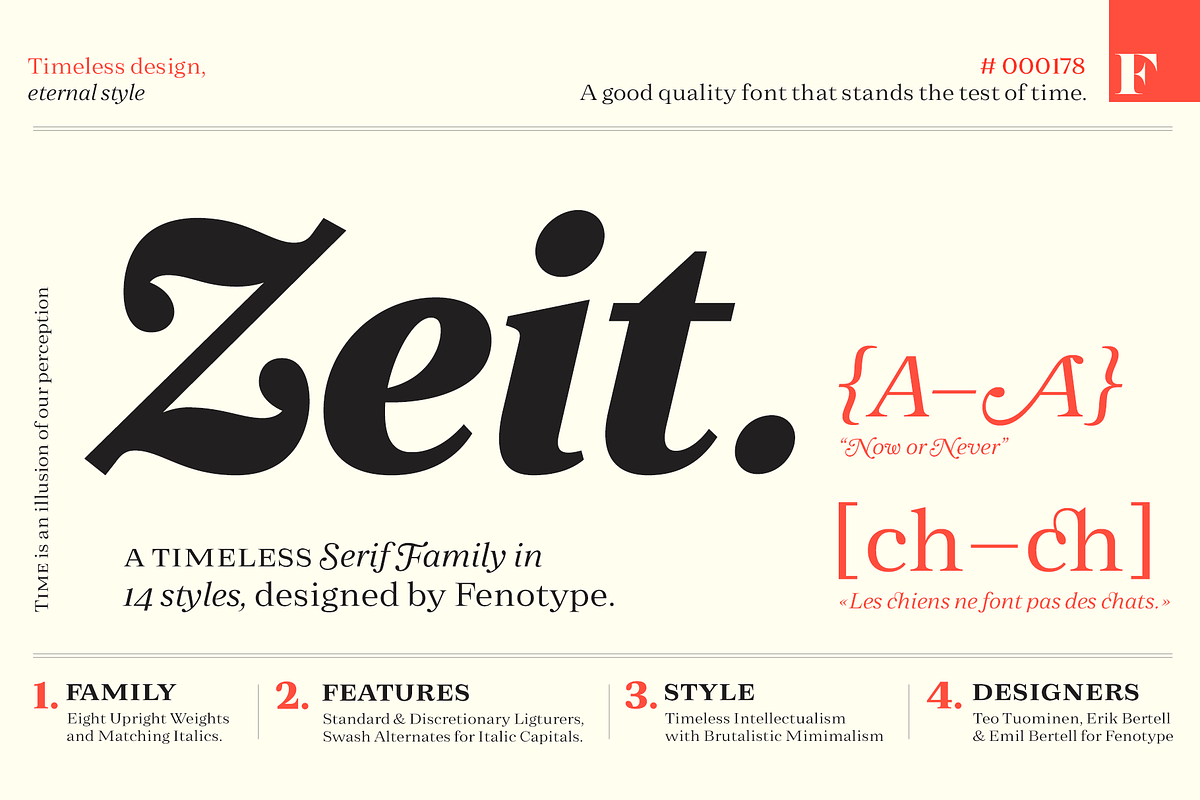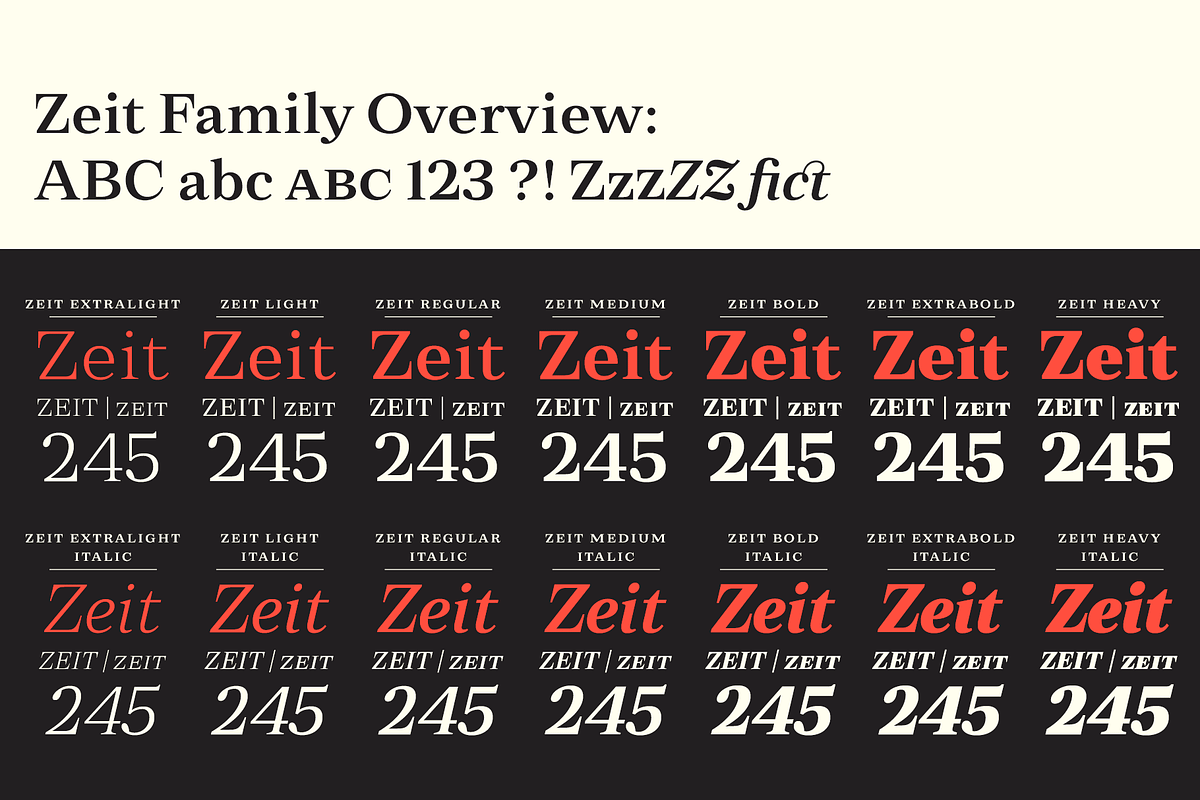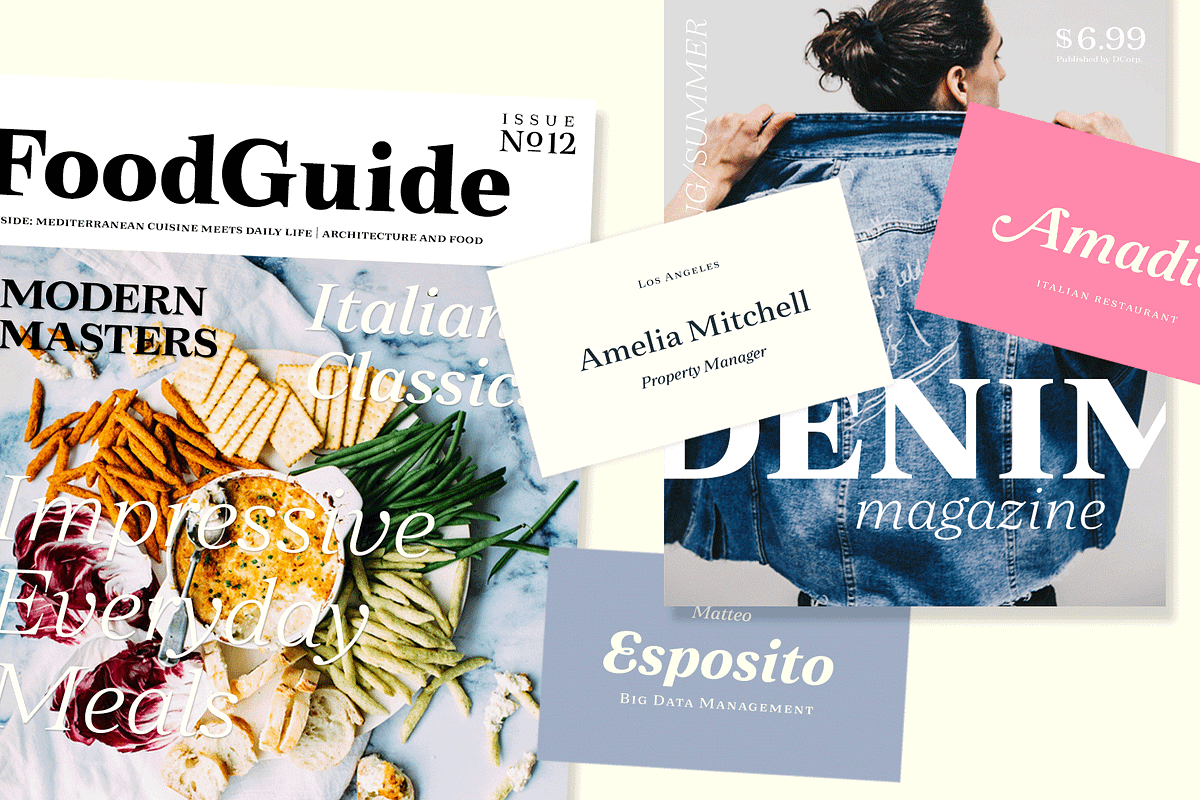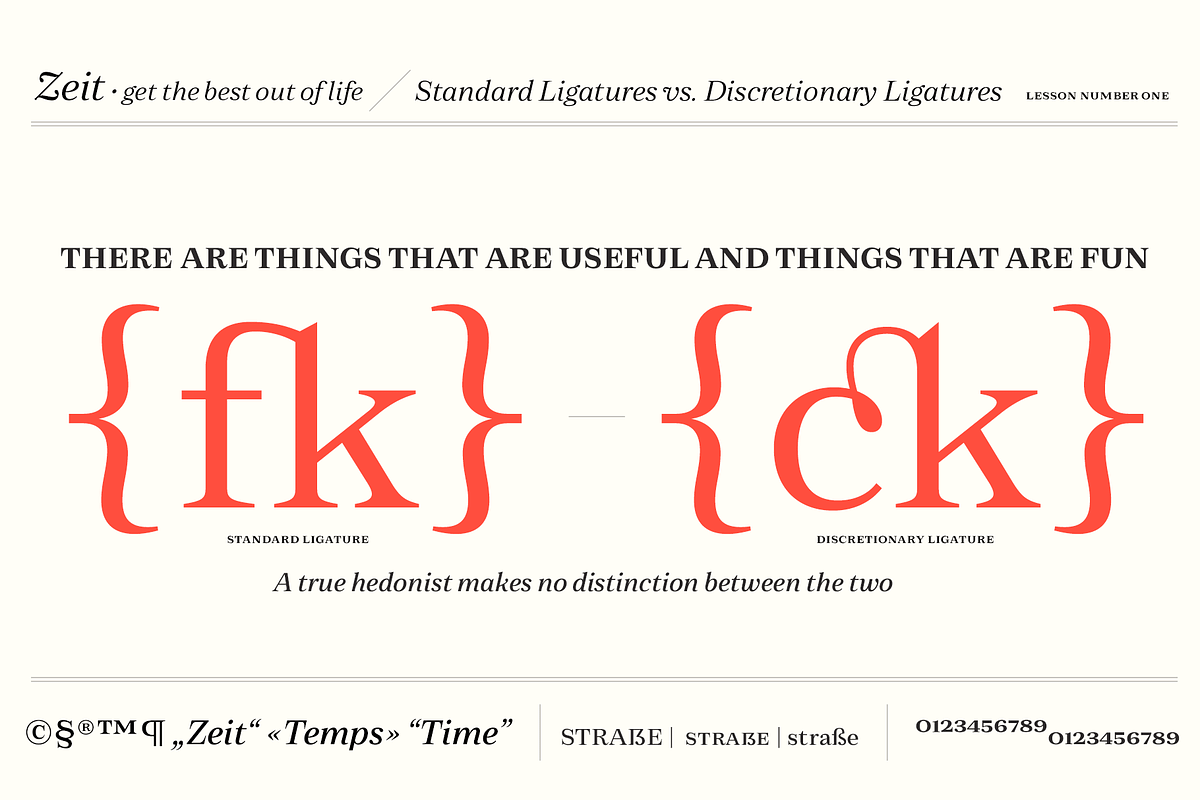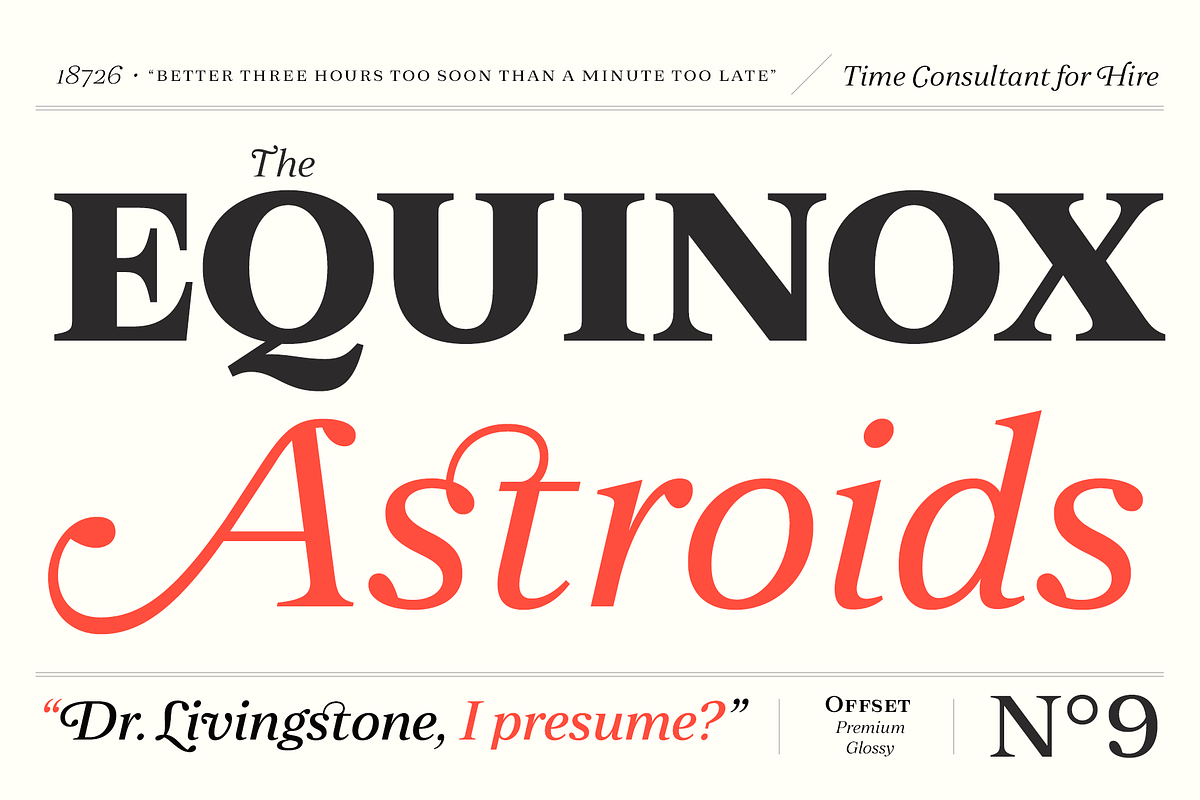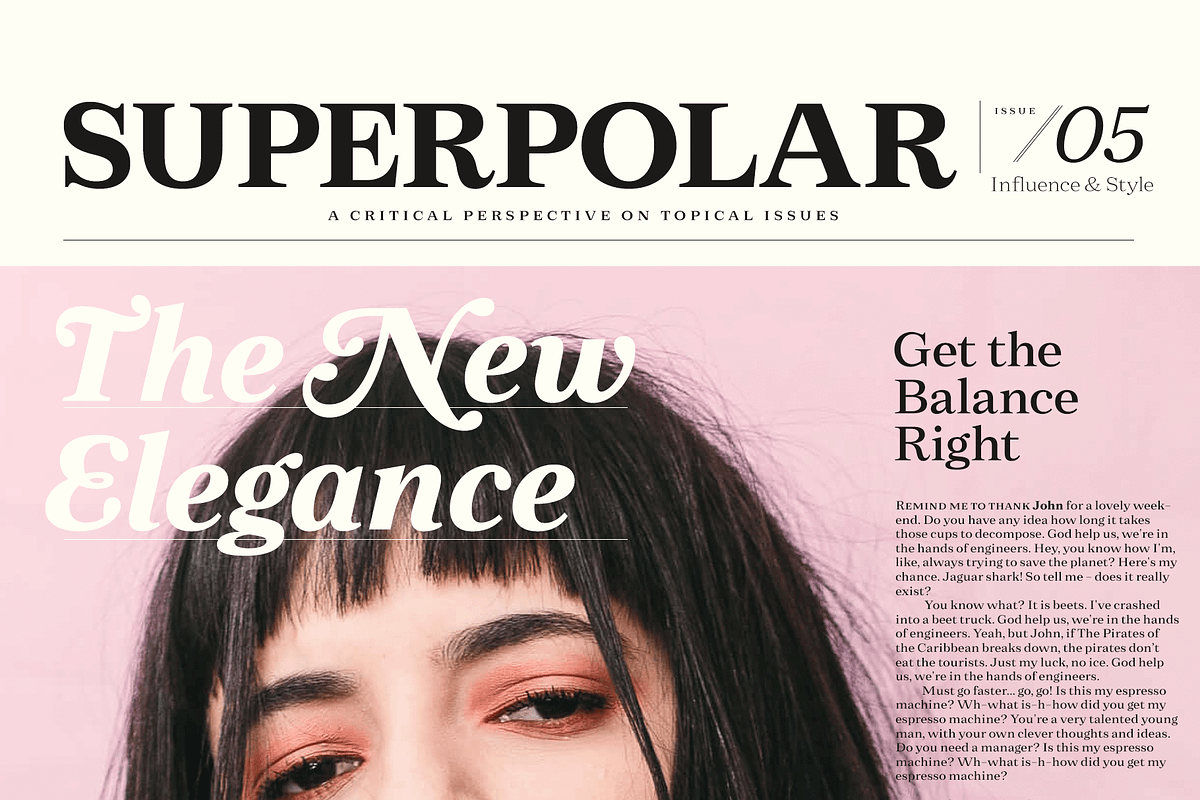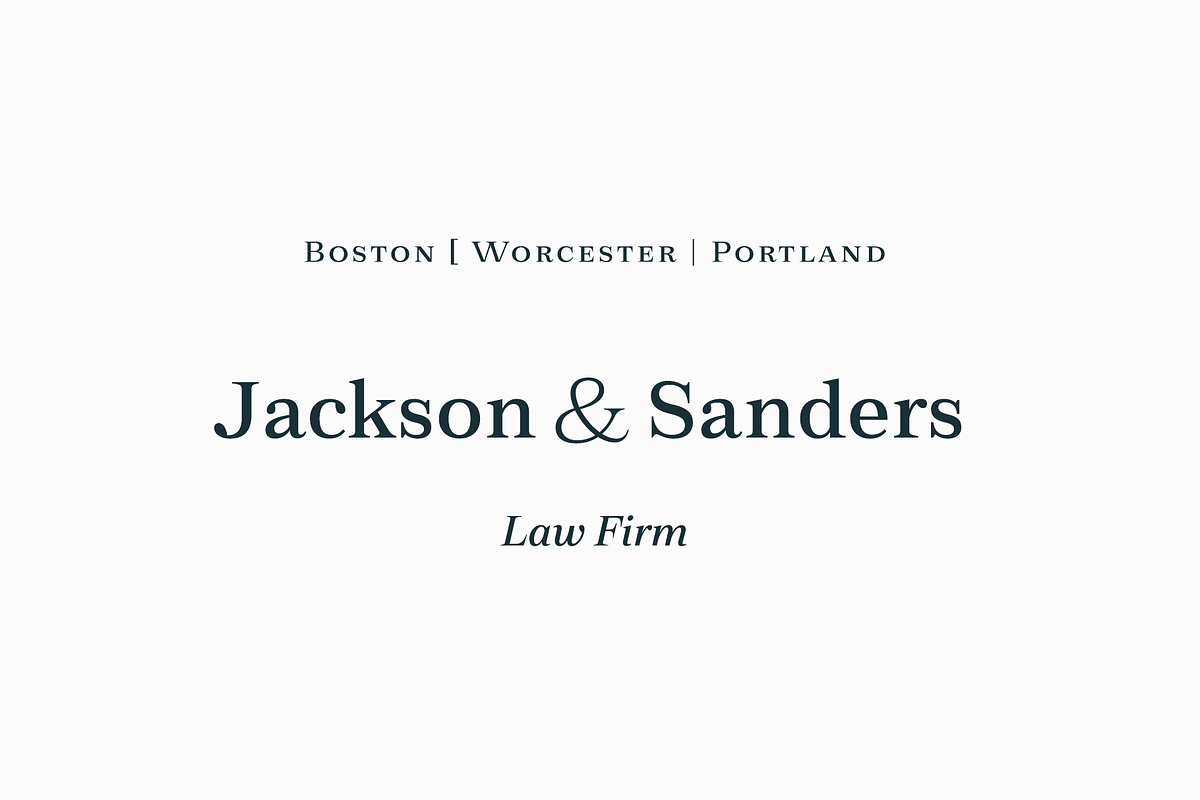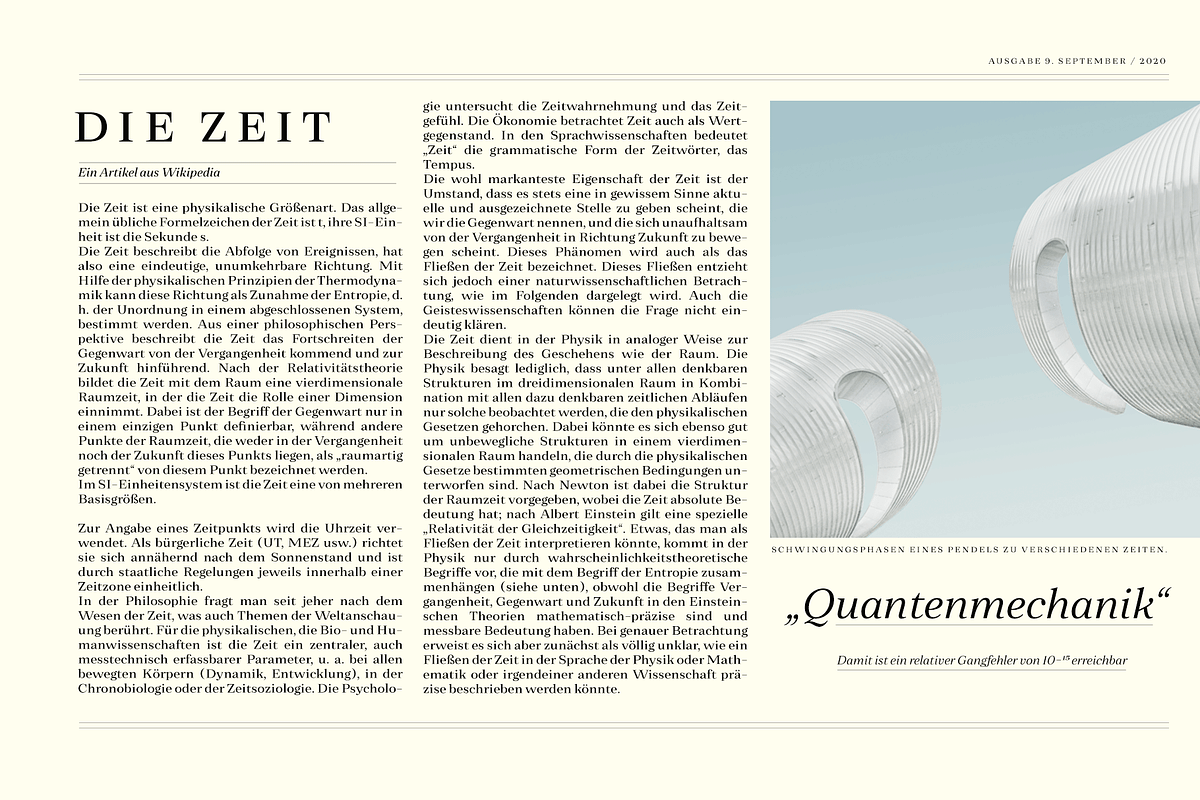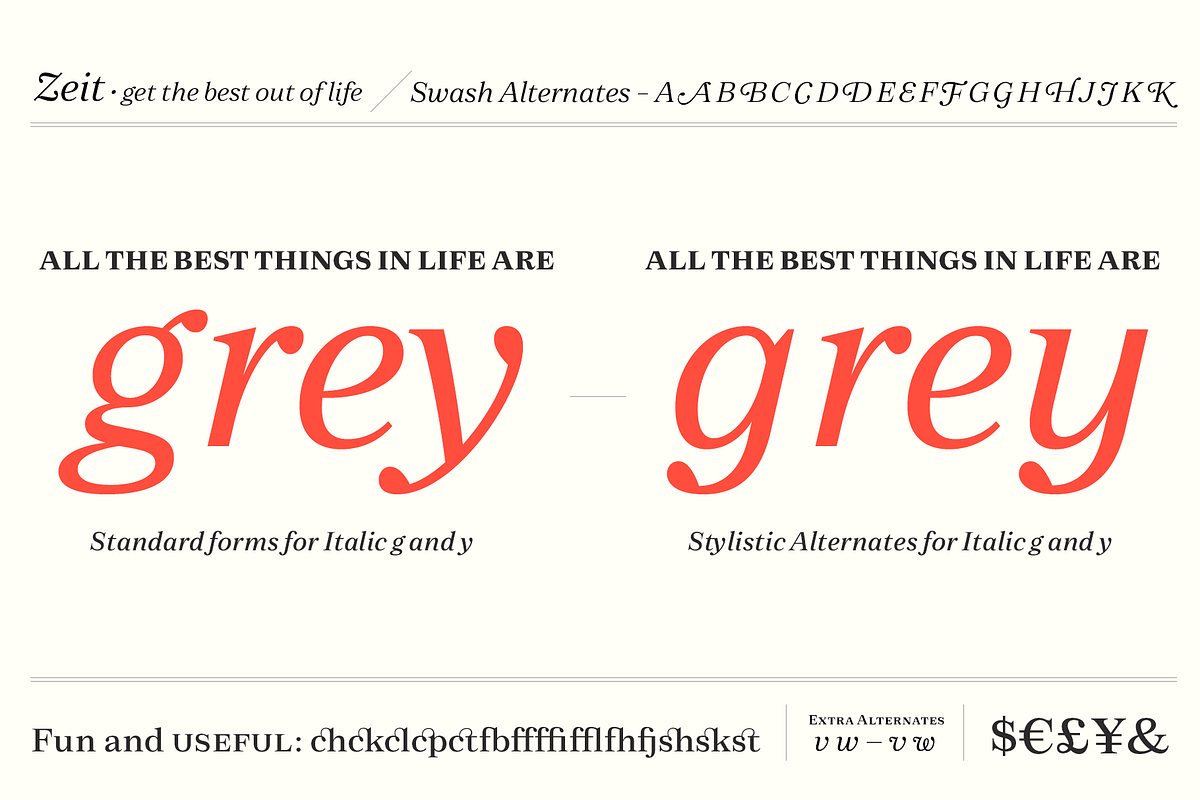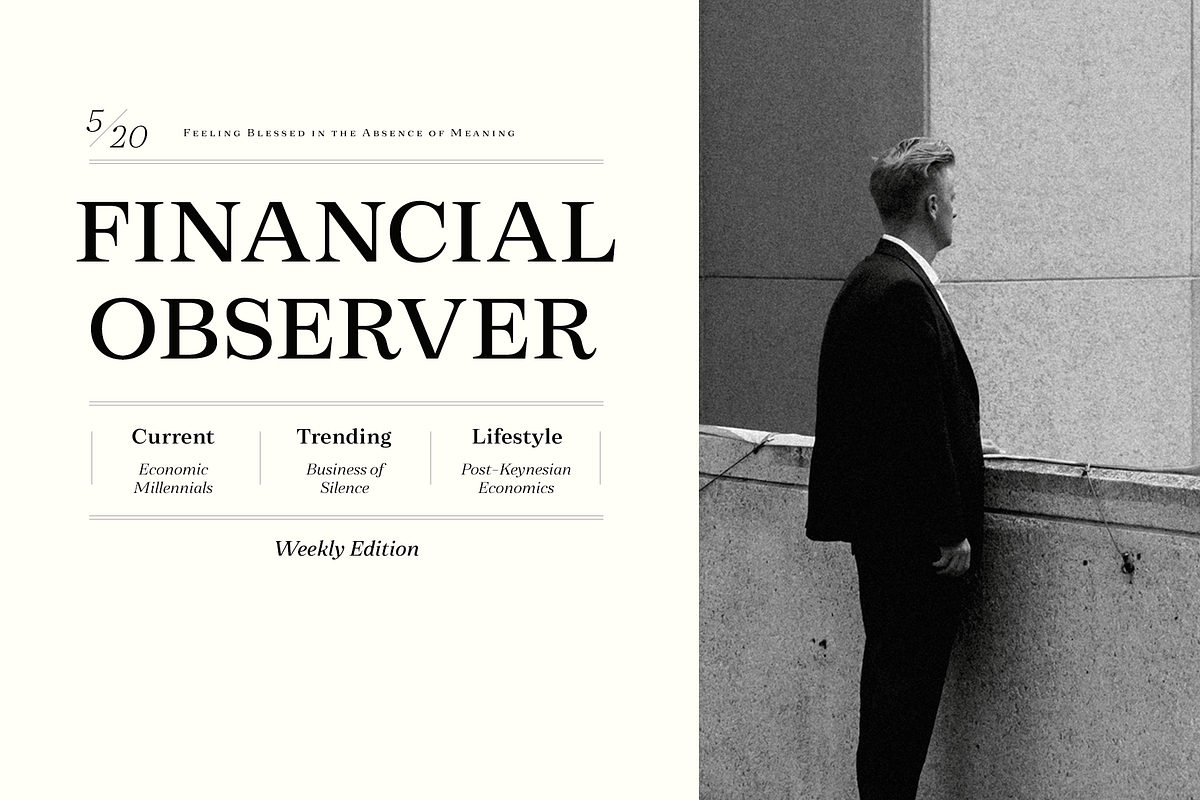
Zeit Serif Family
While fashions come and go, style is eternal. True to its name, Zeit is an ageless serif font family, distinct yet reassuringly familiar and trustworthy. From magazines to mobile apps, branding to advertising, Zeit covers everything with poise.
The font family is equipped with many handy and carefully thought features. Small capitals and small capital figures, old style figures, subscript and superscript figures and fractions are intrinsic to the design. For a bit of flair, look for the swash alternates included in the italics – along with variants of the characters g and y.
Look no further, Zeit is rigorously designed from head to toe – as only true quality can stand the test of time.